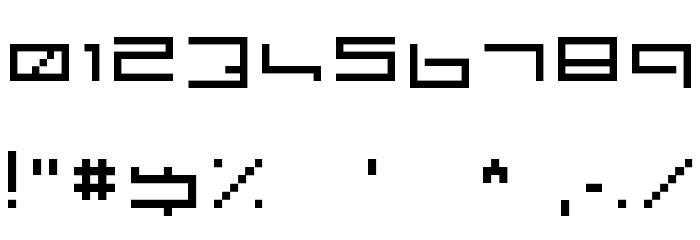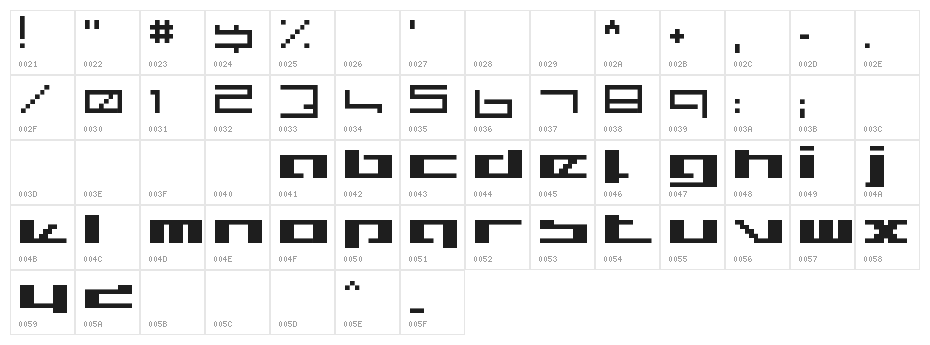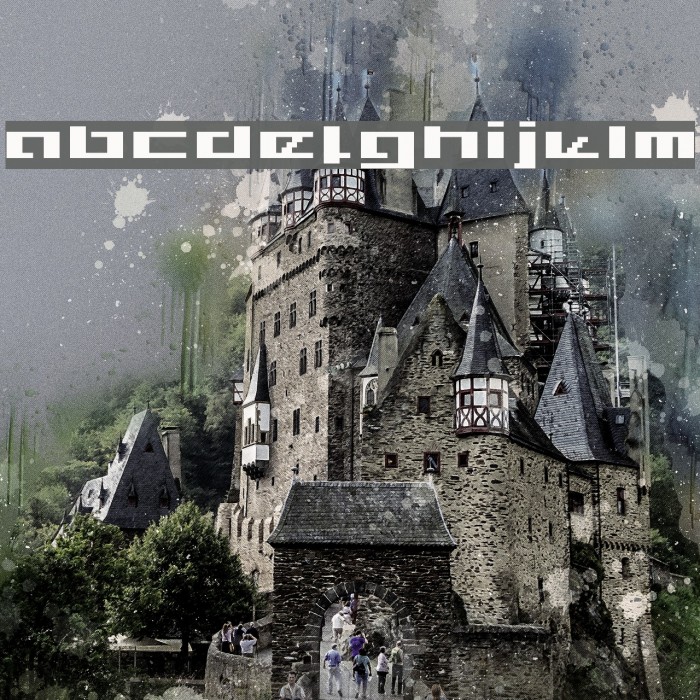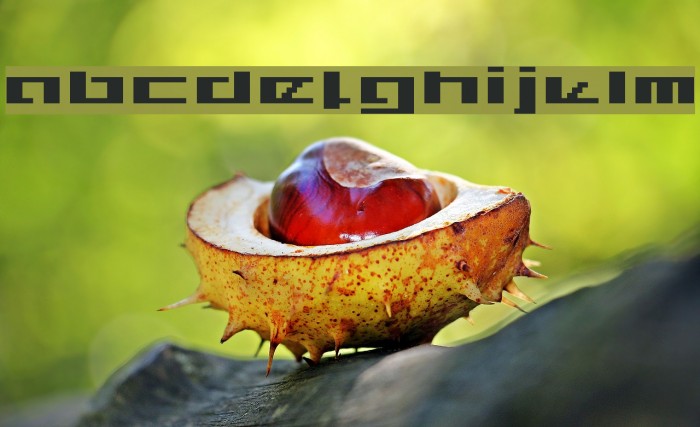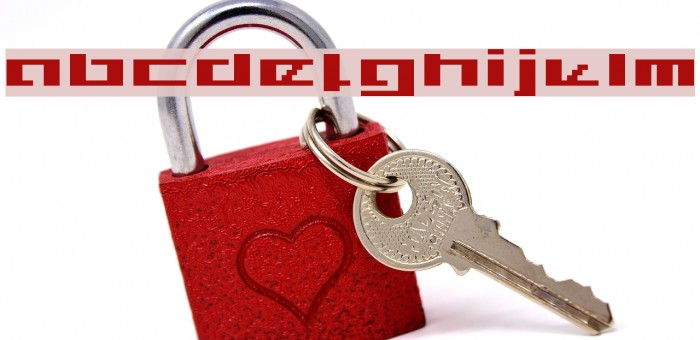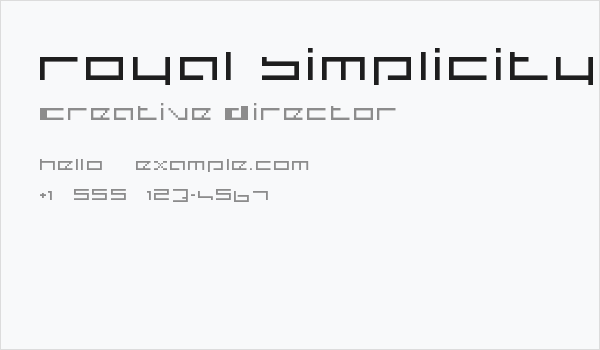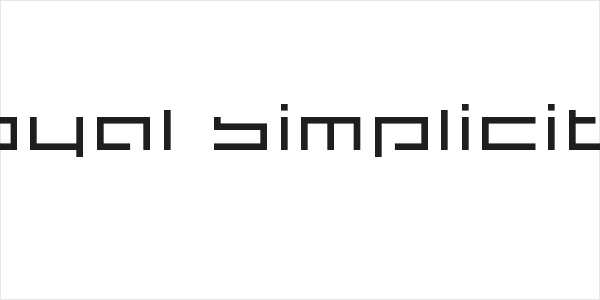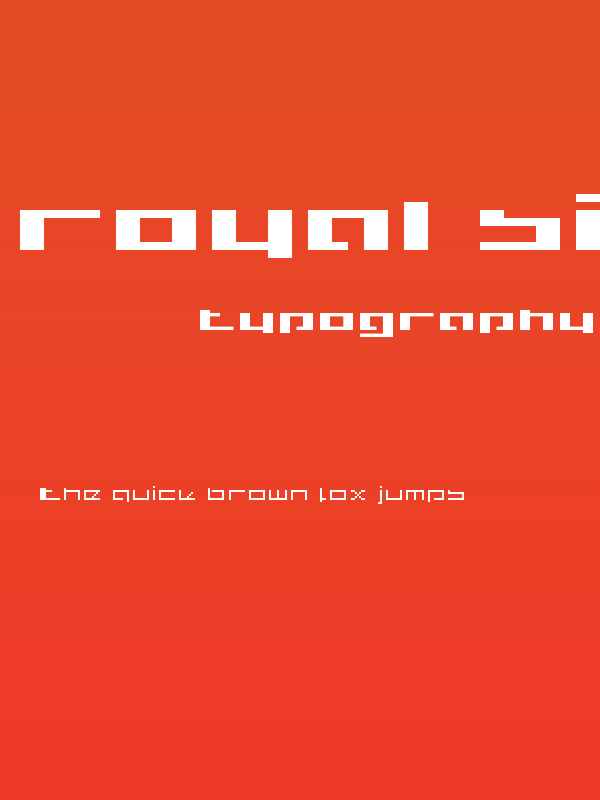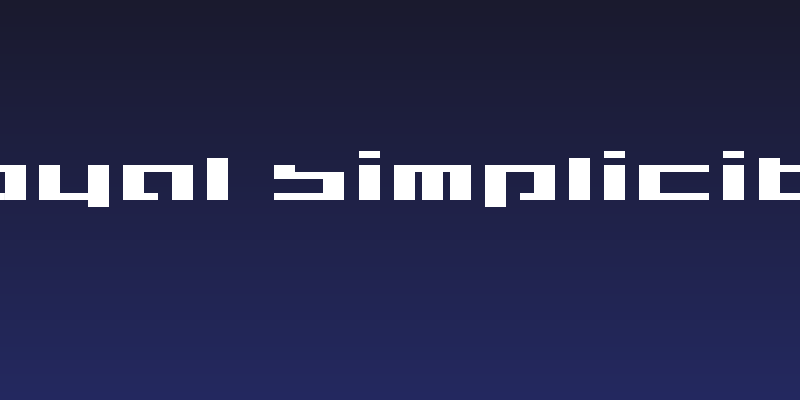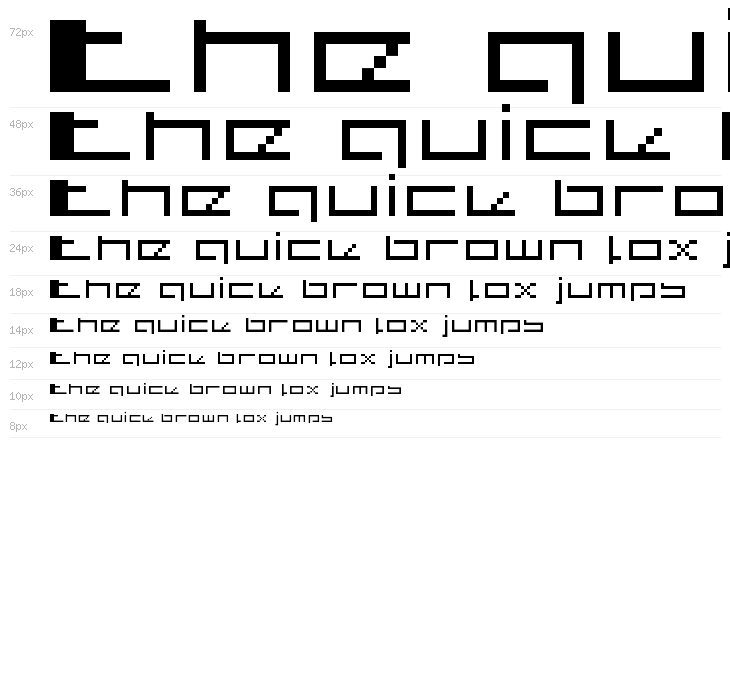
royal simplicity Font
royal simplicity Description
This font features a pixelated, blocky design that evokes a retro, digital aesthetic. The characters are uniformly structured with sharp, angular edges, giving it a distinctly modern and technological feel. The uppercase and lowercase letters maintain a consistent height, contributing to a cohesive and uniform appearance. Numbers and special characters follow the same design principles, ensuring a seamless integration across all text elements. The font's geometric style makes it ideal for projects that require a futuristic or digital theme.
| Proposed Projects | Ideal for video game design, tech-themed posters, digital art, and retro-style branding. |